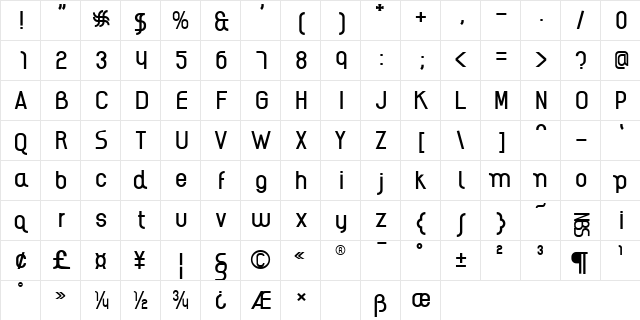
AI kelso R is regular
Design Context for AI kelso R Typeface
AI kelso R takes a measured approach to typography — its balanced proportions and neutral character make it a reliable workhorse for both digital and print work.